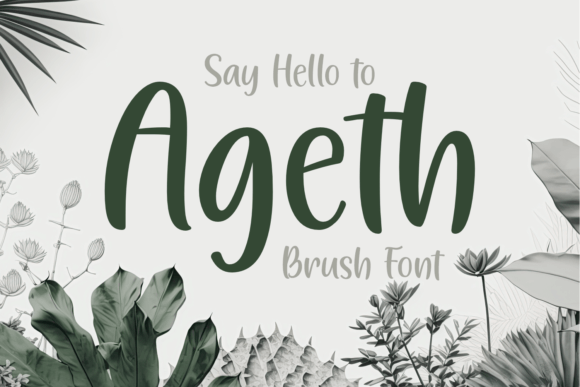
Introduction to Ageth Font
Ageth is a clean and modern script font and is the perfect choice for anyone seeking a sleek and contemporary look.
With its minimalist design and smooth lines, this font exudes a sense of sophistication and professionalism Ideal for logos, branding, and any project in need of a fresh and stylish touch.
Key Features of Ageth Font